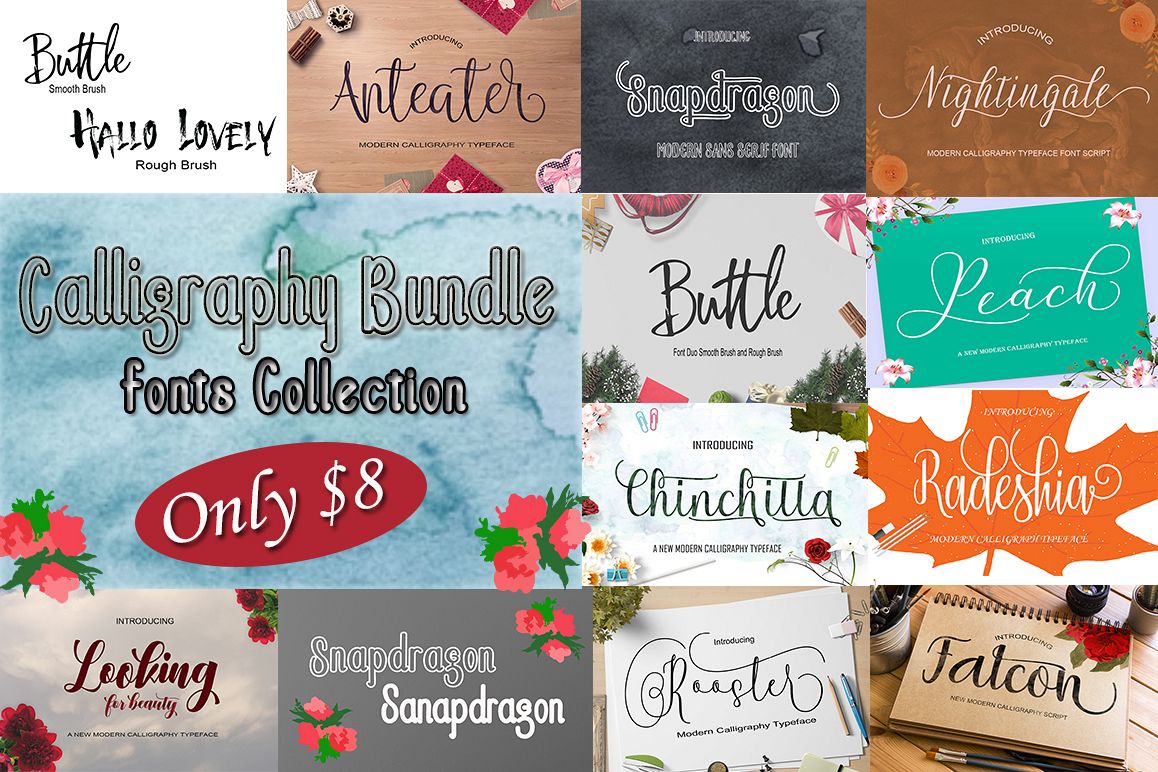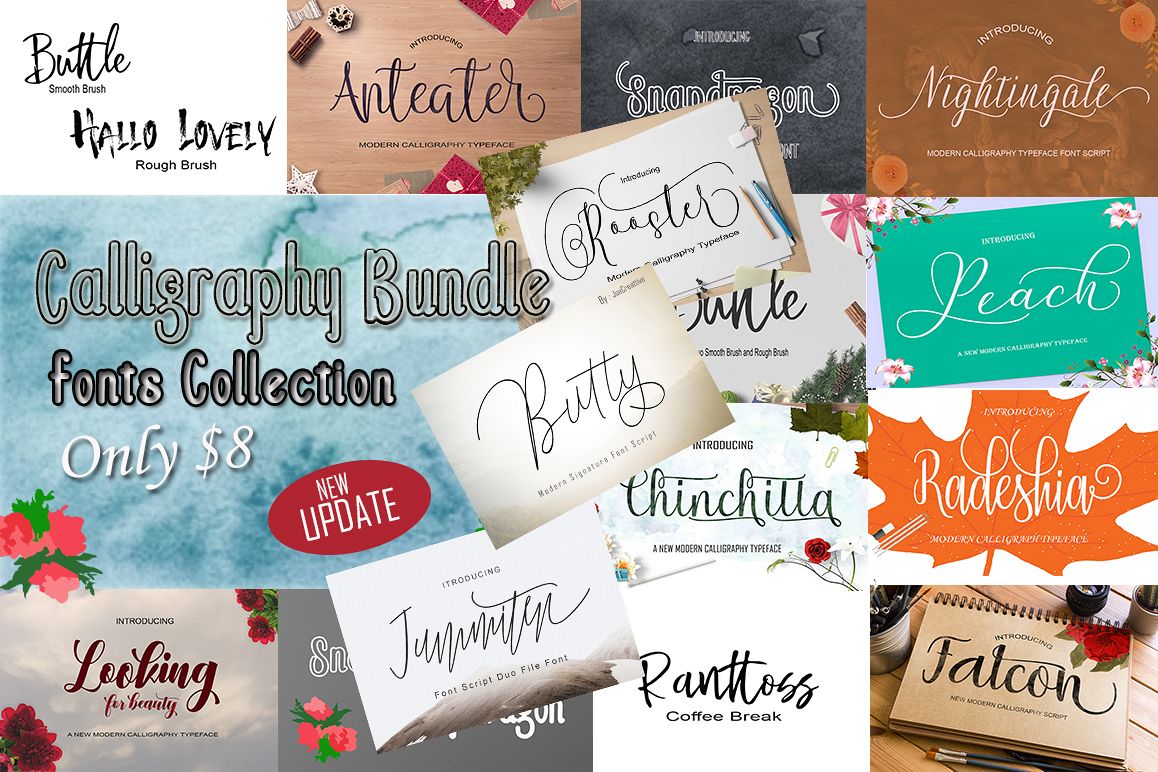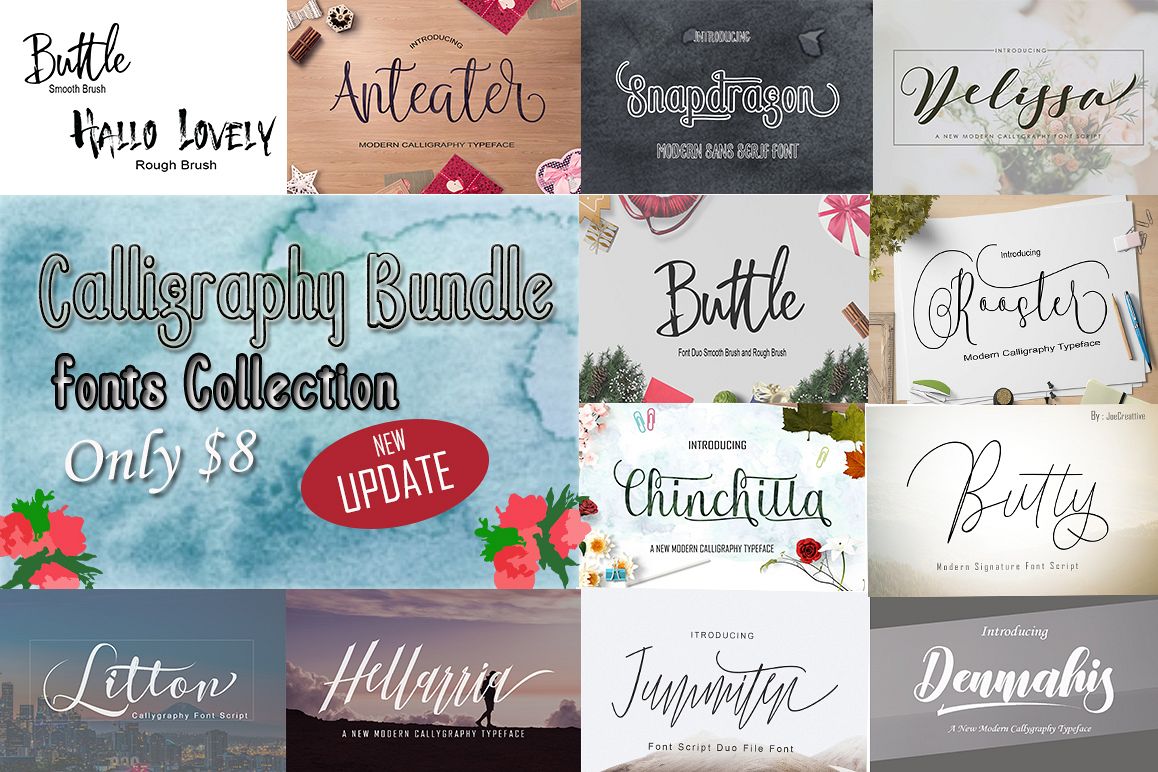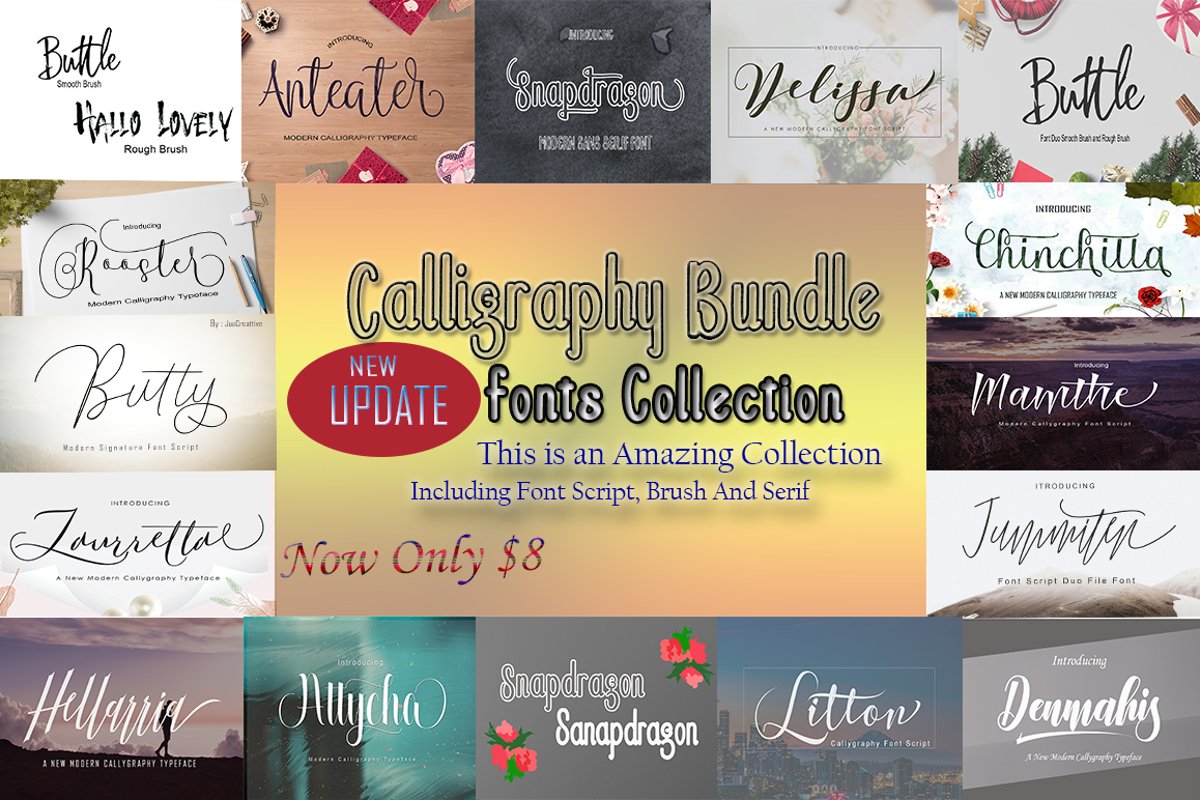
Calligraphy Font Bundles
Buttle
HaLimountLine
Bellagio
Eminent
HaLimount OutLine
Merrabella
Nathalie Script
Trough Beach
hedgehog
chaotic
Jonathan
Welsita
Delissa
Snapdragon2
Hellarri
Litton
Attycha
Anteater
Chinchilla
Denmahis
Butty
Rooster
JummitenLine
Jummiten
Mamthe
Laurretta
Snapdragon
Hello Brush
Collection of Calligraphy Fonts Collection.
hand drawn fonts in the round of amazing offers. Blending classic with modern, this stunning brush font is perfect for everything from wedding invitations to logos to T-shirts! It includes many OpenType features such as swipes, Initial and Terminal Forms, and standard binders, and the possibilities are endless.
With a wide range of OpenType features including Standard Ligatures, Alternate Styles, and Style Sets, your latest project will really stand out in a completely natural and elegant script style.